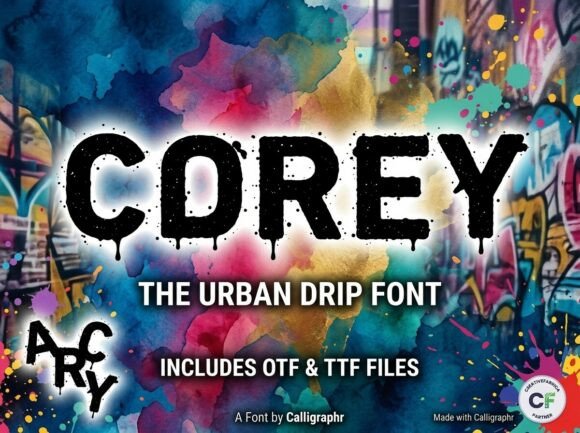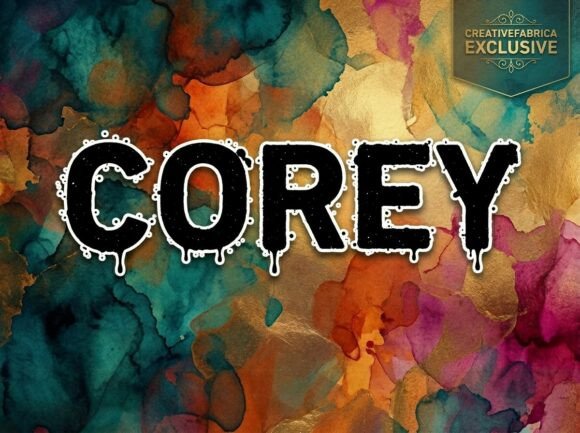
Introducing Corey: The Ultimate Grungy Spray Paint Display Font
Are you tired of using the same old fonts for your street culture branding, skate shop logos, and hip-hop event posters? Look no further than Corey, a bold and edgy display font that captures the raw energy of the streets. With its realistic spray-paint textures and gravity-defying drips, Corey is the perfect choice for designers and crafters who want to add a touch of urban attitude to their work.
The Inspiration Behind Corey
Corey is more than just a font – it’s an experience. Inspired by the vibrant street art scene, Corey embodies the spirit of urban creativity and self-expression. The font features bold, rounded characters with a distressed, grungy texture that’s reminiscent of spray-painted graffiti. Each letter is carefully crafted to resemble a hand-painted sign, complete with splatters, drips, and other imperfections that give it a authentic, underground feel.
Key Features of Corey
- Bold and Edgy Design: Corey’s bold, rounded characters are perfect for making a statement. Whether you’re designing a logo, poster, or social media overlay, Corey is sure to grab attention.
- Realistic Spray-Paint Textures: The font features realistic spray-paint textures, complete with splatters and gravity-defying drips. This gives Corey a unique, hand-painted look that’s perfect for street culture branding.
- High-Impact Weight: Corey’s high-impact weight makes it perfect for display purposes. Use it to create eye-catching headlines, titles, and captions that demand attention.
- Underground-Street-Art Soul: Corey has an unmistakable “underground-street-art” soul that’s perfect for designers and crafters who want to tap into the urban aesthetic.
Use Cases for Corey
So, what can you use Corey for? The possibilities are endless! Here are a few ideas to get you started:
- Street Culture Branding: Use Corey to create bold, eye-catching logos for streetwear brands, skate shops, and hip-hop labels.
- Skate Shop Logos: Corey’s grungy texture and bold design make it perfect for skate shop logos, stickers, and decals.
- Hip-Hop Event Posters: Create eye-catching posters for hip-hop events, concerts, and festivals with Corey.
- Social Media Overlays: Use Corey to create edgy, grunge-core social media overlays that will make your followers take notice.
Tips for Using Corey
Here are a few tips for using Corey effectively:
- Experiment with Colors: Corey looks great in bold, bright colors. Experiment with different color schemes to find the perfect look for your design.
- Play with Texture: Corey’s texture is one of its standout features. Experiment with different textures and overlays to add depth and interest to your design.
- Keep it Bold: Corey is a bold font, so keep your design bold and eye-catching. Avoid using too much text or cluttering your design with too many elements.
In conclusion, Corey is a game-changing font that’s perfect for designers and crafters who want to add a touch of urban attitude to their work. With its bold design, realistic spray-paint textures, and high-impact weight, Corey is the ultimate choice for street culture branding, skate shop logos, hip-hop event posters, and edgy social media overlays. So why wait? Download Corey today and start creating bold, eye-catching designs that demand attention!